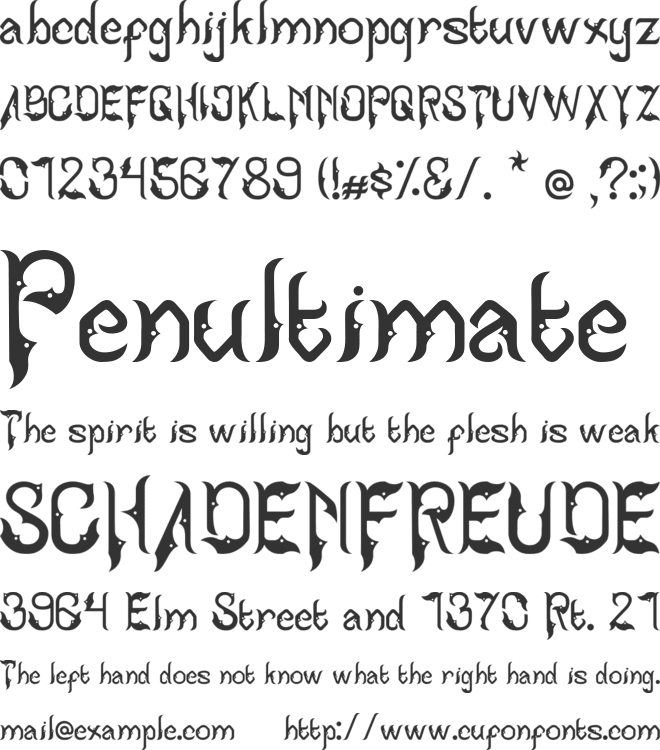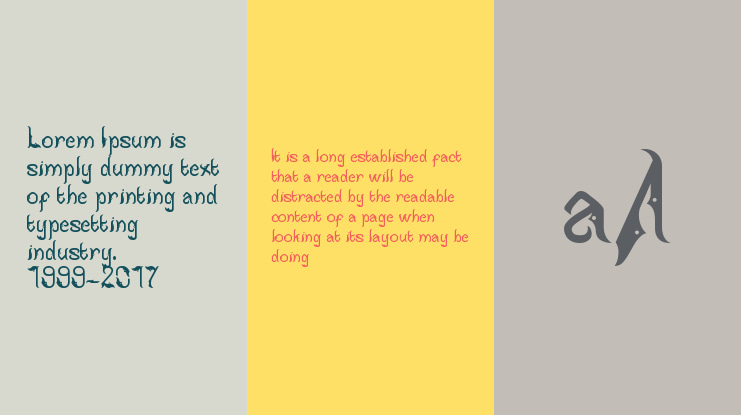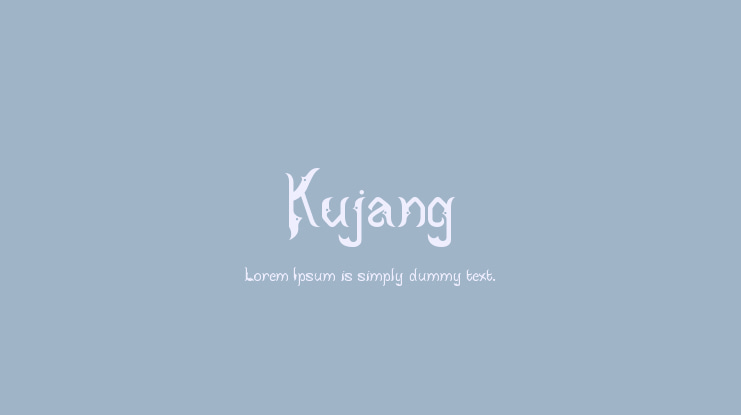
Kujang Font
This typeface was inspired by the traditional weapon, Kujang. The Kujang is a blade weapon native to the Sundanese people of West Java, Indonesia. Instead of traditional, this typeface has a more modern approach to the Kujang. The shape of this typeface resembles the blade of the Kujang but in a more simplified shape.